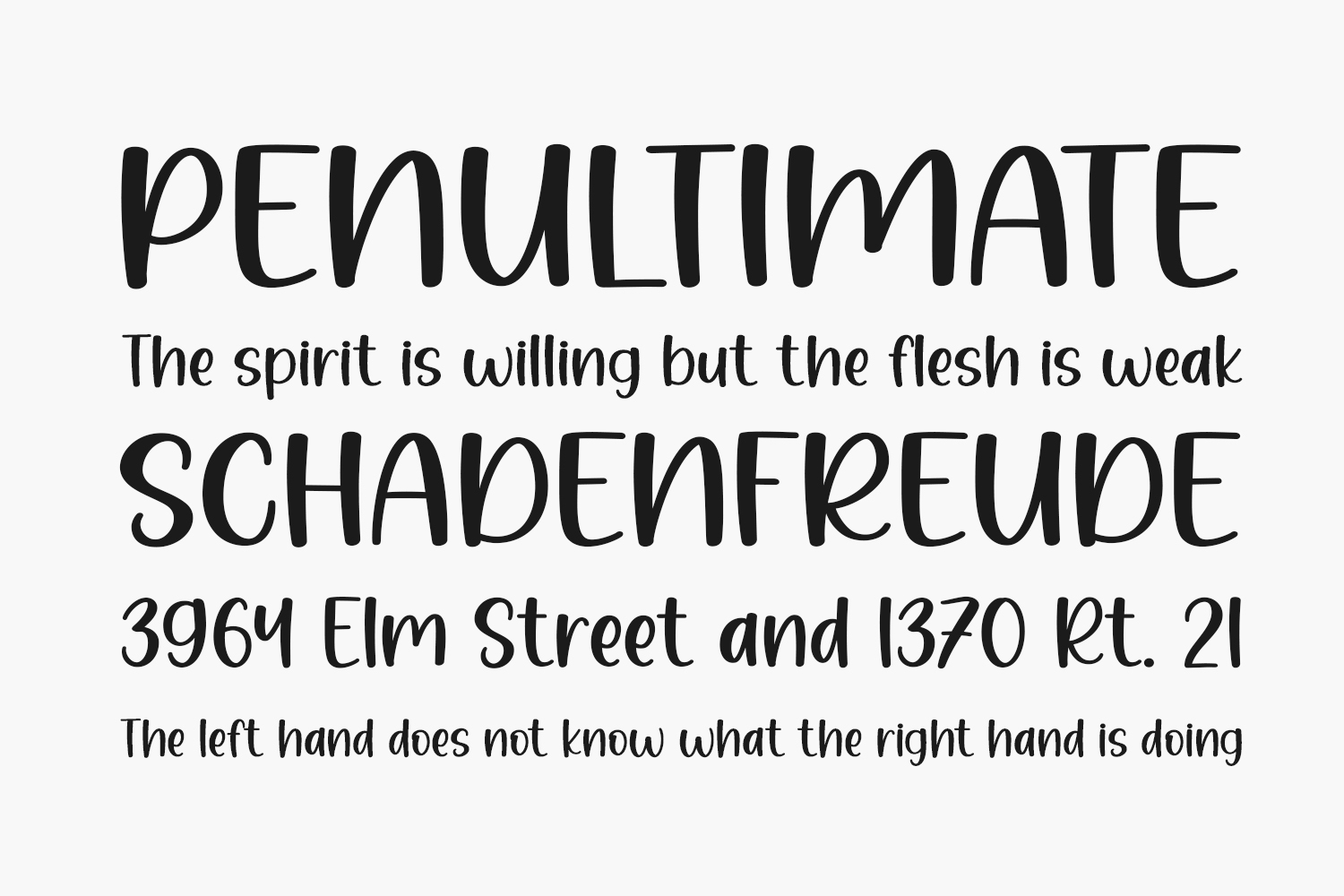
Meet Caramel Macchiato Free Font Family, a charming duo font that combines a simple handwritten style with an elegant cursive script. With its beautiful and well-balanced characters, this font duo is versatile and complements a diverse range of designs, making it an ideal choice for various creative projects. Download the font for free if you need it for personal use or purchase the full version for commercial use.
Caramel Regular The quick brown fox jumps over the lazy dog
Macchiato Regular The quick brown fox jumps over the lazy dog